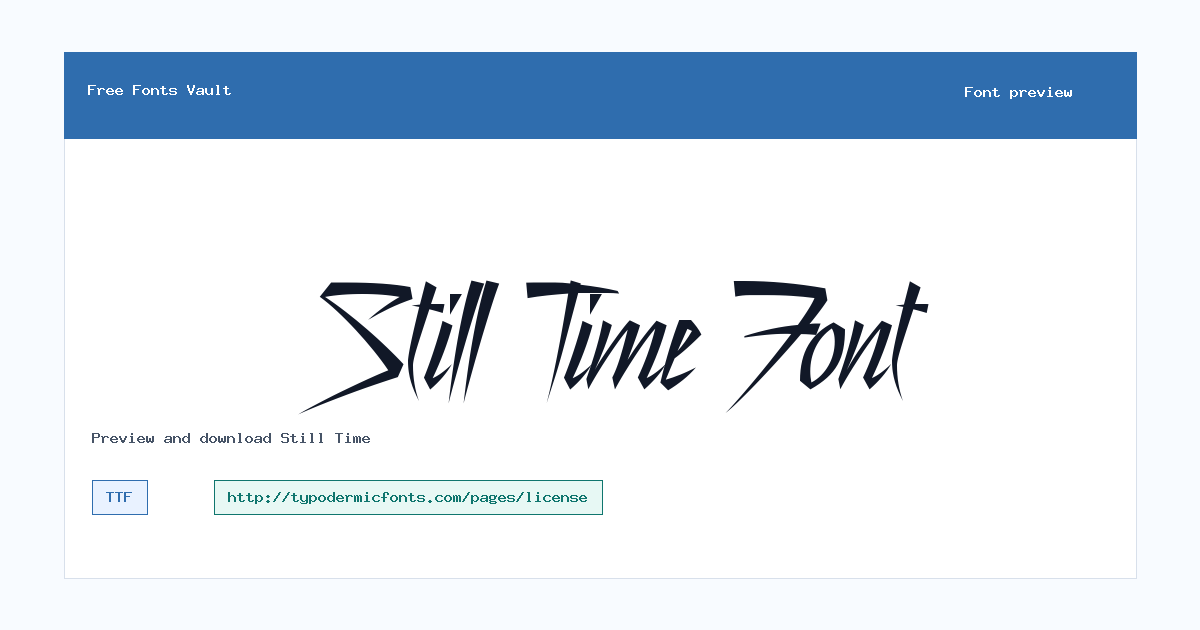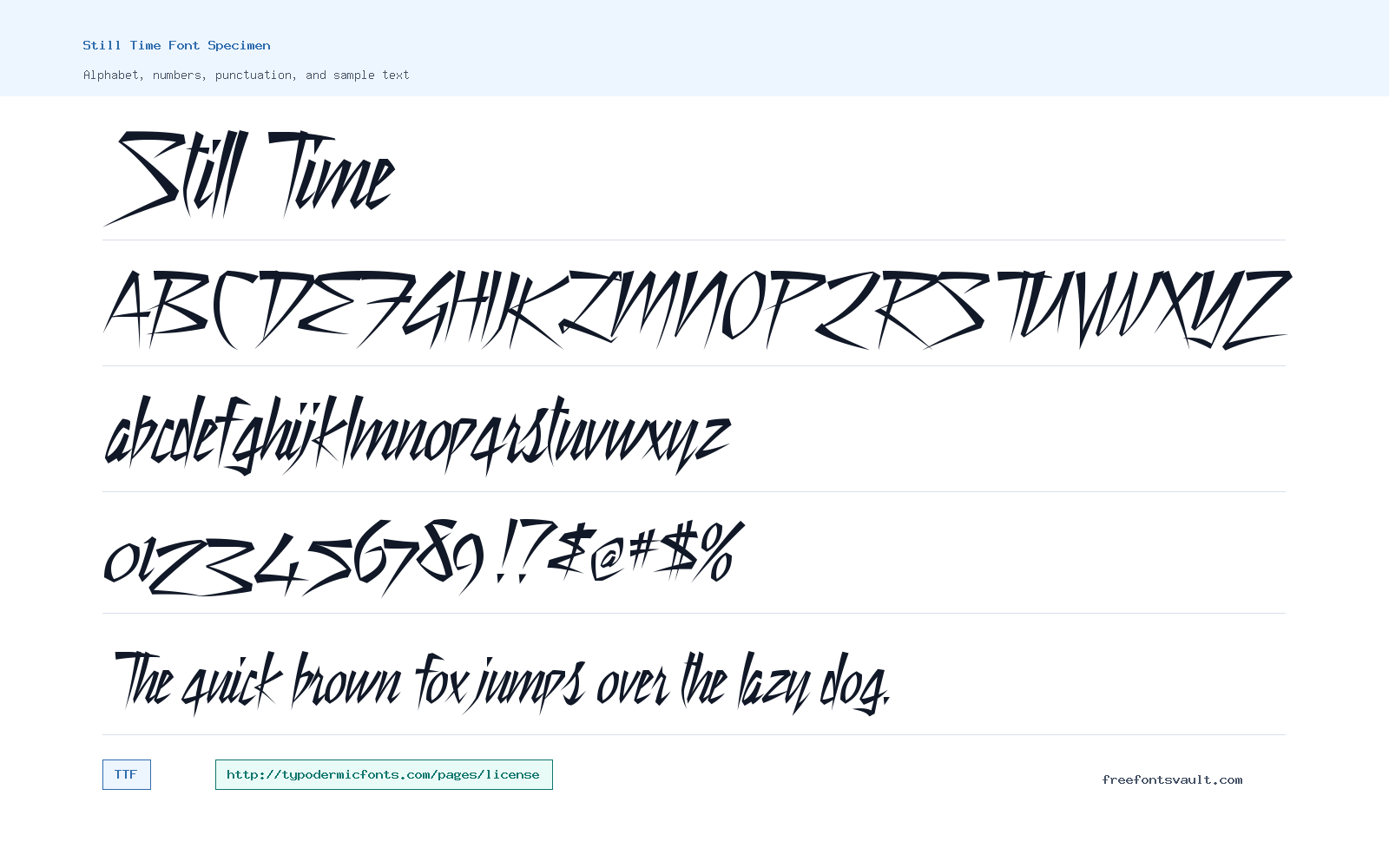
Still Time
Still Time font preview showing the family name
Still Time Font
Still Time font specimen showing alphabet, numbers, and sample text
Still Time font.
Still Time is a sharp, slanted display font with a fast handwritten look. It works best when you need a title or short line to feel rough, energetic, and a little aggressive.
About Still Time
Still Time uses narrow, angular letterforms with pointed strokes and uneven edges. The uppercase letters have a scratchy marker feel, while the lowercase set is tighter and more compressed. It is not a quiet reading font. Its strength is in short words, names, logos, poster lines, and other places where the shape of the text matters as much as the words.
For best results, compare a few versions of the same line before settling on one. Still Time can look stronger when the words are kept short and the layout gives the letters room to breathe. If a phrase starts to feel crowded, try title case, wider spacing, or a line break instead of shrinking the font.
• Sharp handwritten display style with slanted, pointed strokes
• Uppercase, lowercase, numbers, and common punctuation visible in the font file
• Best suited to large text where the rough shape can be seen clearly
• Poster titles and event graphics
• Music, movie, or entertainment-style headings
• Short logo-style text
• Social media images and thumbnail lettering
• Decorative titles that need a sharp handwritten edge
Still Time is credited to Ray Larabie, with Typodermic Fonts listed as the related designer site.
Keep Still Time large and brief. Test your wording in the preview, then adjust tracking or line breaks if the sharp strokes overlap or make a word harder to read. It is a good candidate for dramatic accent text, but it should sit beside a cleaner companion font when the design also needs paragraphs, navigation, or small supporting copy.
What kind of font is Still Time?
Still Time is a display font with sharp, slanted handwritten shapes. It is better for titles and short phrases than for long reading text.
Is Still Time good for body text?
No. The pointed strokes and compressed shapes can become hard to read in paragraphs or small sizes. Use it for headings, posters, and short decorative text.
Who designed Still Time?
Still Time is credited to Ray Larabie.
How should I pair Still Time?
Pair it with a plain sans serif or readable serif. Let Still Time handle the headline or name, then use the simpler font for descriptions, dates, buttons, and other details.